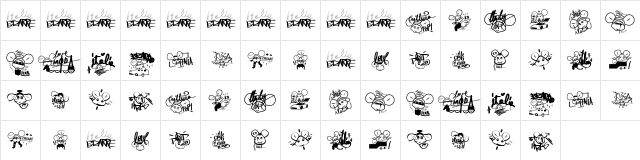
GIGIO ITALIA BIZARRE Free Font
GIGIO ITALIA BIZARRE GIGIO ITALIA BIZARRE
Style: GIGIO ITALIA BIZARRE
Foundry: RODRIGO ARAYA SALAS
Design Context for GIGIO ITALIA BIZARRE
GIGIO ITALIA BIZARRE is a composed and adaptable typeface that performs quietly and consistently across a wide range of design contexts.
Who designed the GIGIO ITALIA BIZARRE font?